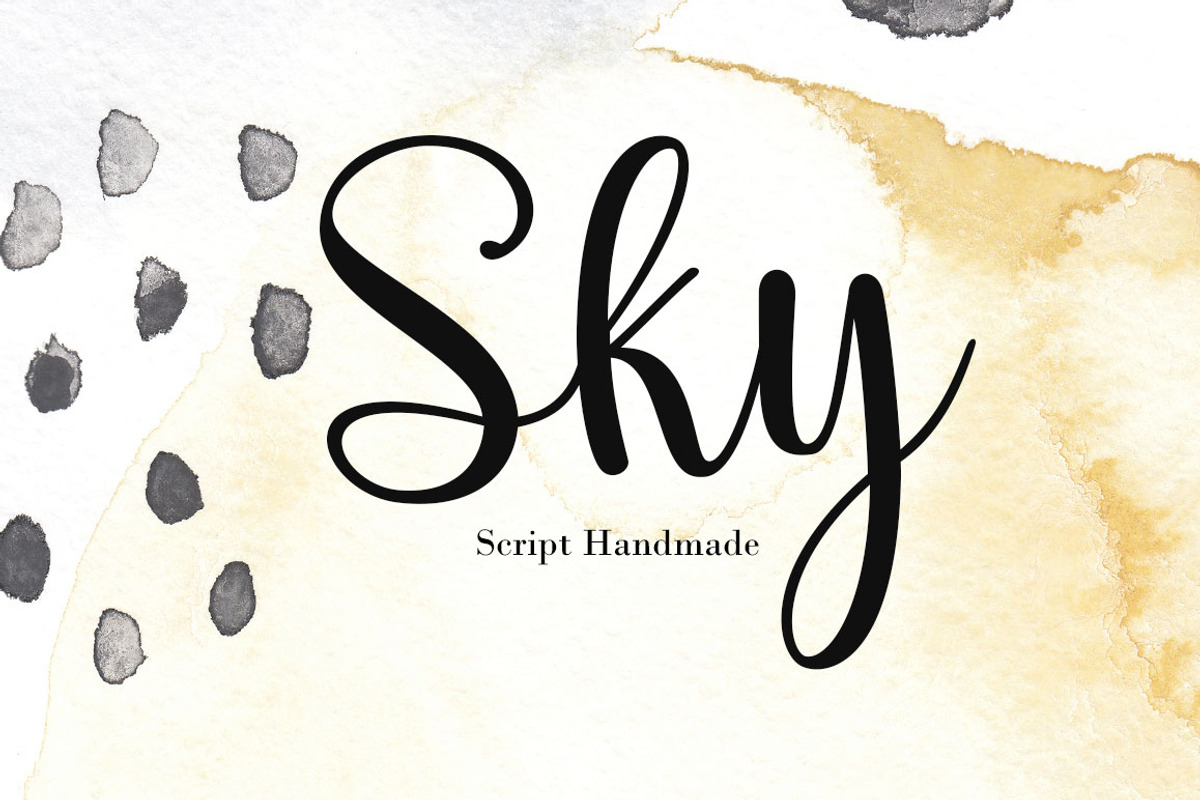
Sky Script
Introducing Sky Script, Fancy, handwritten typography, modern calligraphy script, which combines classic style with modern style calligraphy, make this a collection in your font library